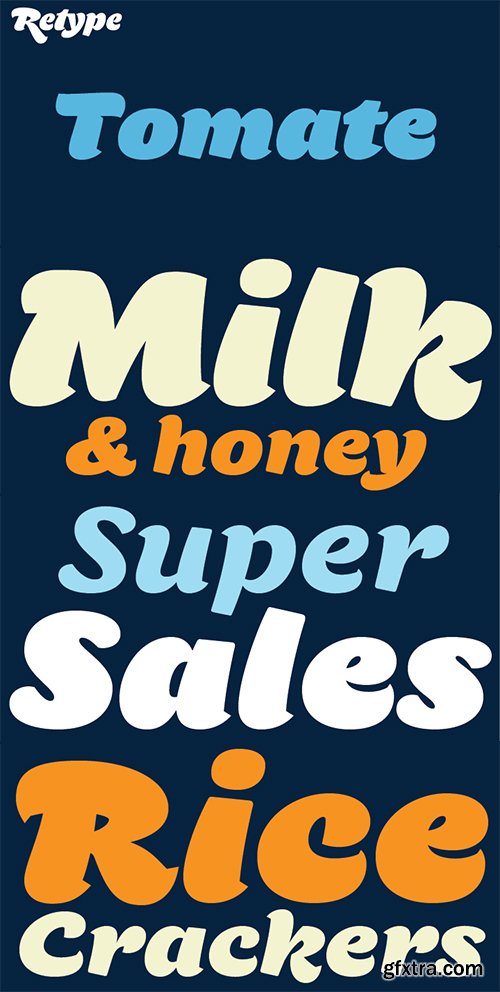
Tomate started in 2013 as a brush lettering exercise for a poster and was later used for the ReType identity.In 2014 its author decided to turn it into a super fat typeface suitable for packaging and mass consumption products.The possibilities of ultra heavy forms are explored in this alphabet; trying to solve the design problems that these sort of forms present.